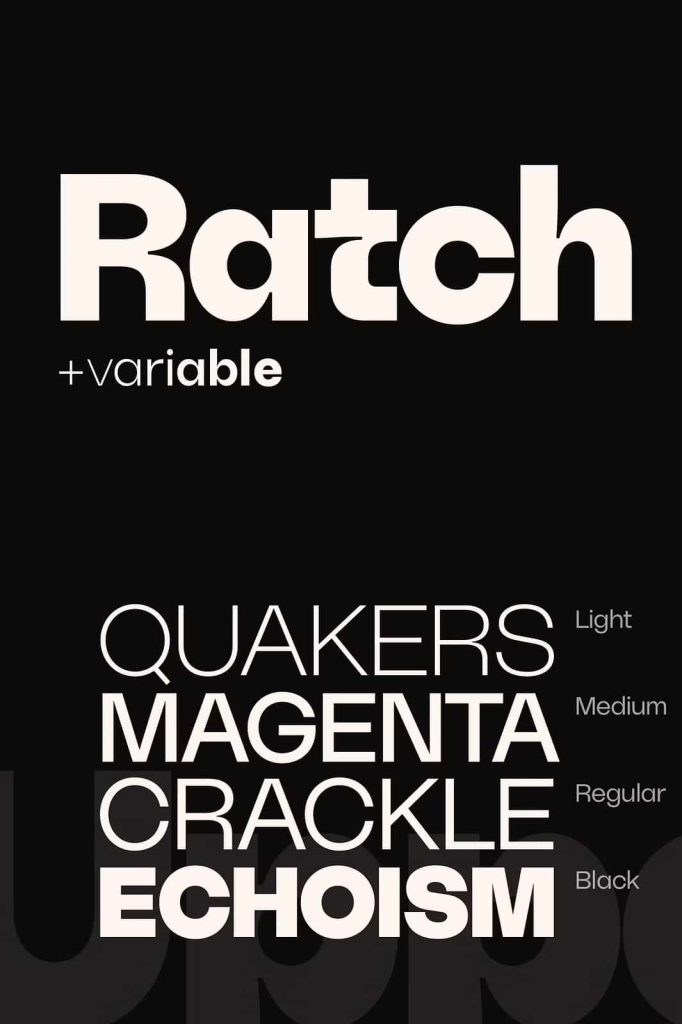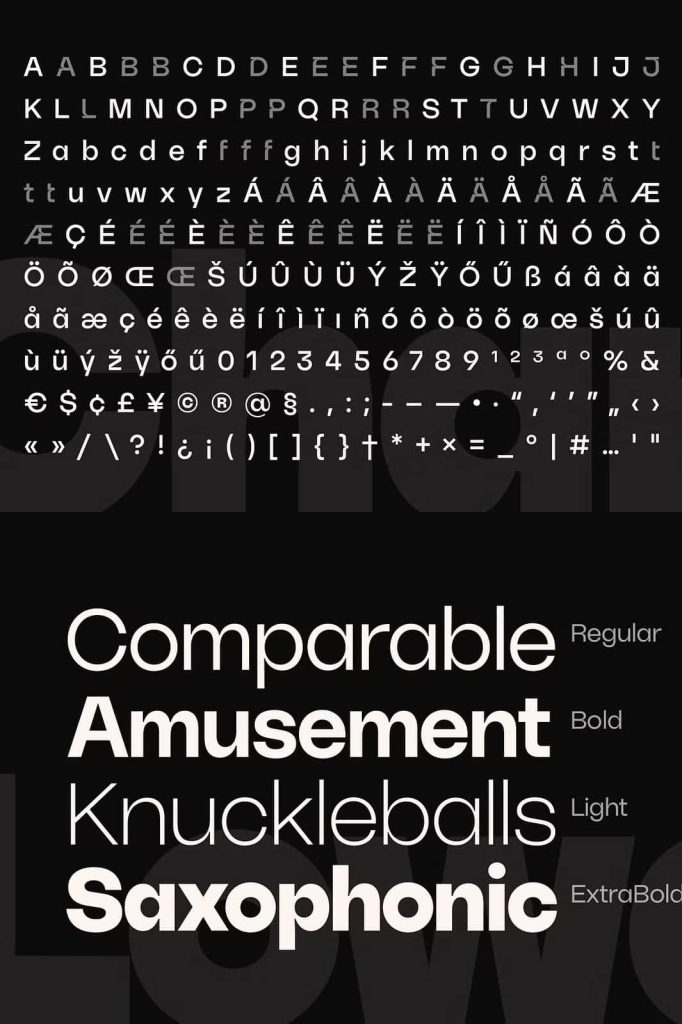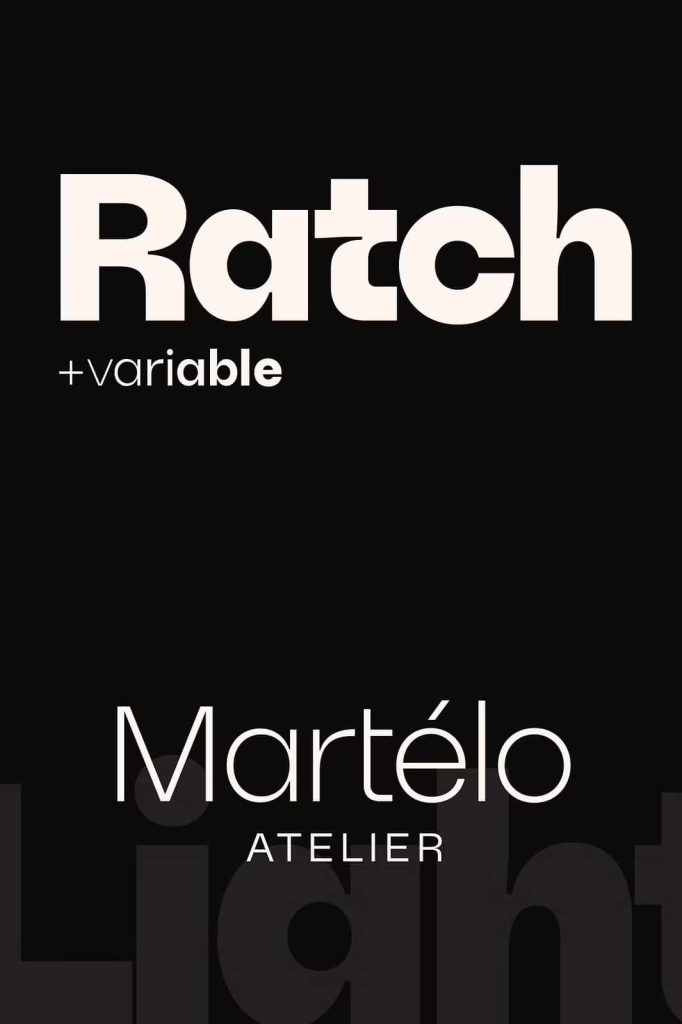
Ratch Geometric Grotesk Typeface Family
Ratch is a modern geometric grotesk typeface family designed to deliver clarity, flexibility, and bold contemporary character. Built with precision and balance, Ratch offers seven carefully engineered weights ranging from Thin to Black, along with a fully functional variable font that gives designers complete creative control. This typeface family empowers you to shape typography with confidence, whether you create branding systems, editorial layouts, or digital interfaces.
Ratch combines the clean logic of geometric construction with the expressive functionality of a versatile font system. Its structured forms create strong visual rhythm, while its extensive weight range allows you to build hierarchy effortlessly. Designers can rely on Ratch to maintain consistency across projects while still offering room for individuality.
Seven Weights for Complete Typographic Control
Ratch provides seven distinct weights, from Thin to Black, ensuring flexibility across every stage of design. The lighter weights deliver elegance and openness, making them perfect for minimal layouts, high-end branding, and spacious editorial spreads. Medium and Regular weights support body text and interface elements with clarity and comfort. Bold and Black weights bring power and emphasis to headlines, posters, and promotional materials.
This broad spectrum of weights allows you to construct strong typographic hierarchy without switching typefaces. You can create contrast, emphasis, and balance within a single cohesive family. Ratch simplifies your workflow while strengthening visual consistency.
From Thin to Black with Precision
Each weight maintains consistent proportions and spacing, preserving harmony across the entire family. The transition from Thin to Black feels smooth and intentional. This careful calibration ensures your layouts remain balanced, whether you design subtle editorial pages or bold advertising campaigns.
By offering reliable weight progression, Ratch supports complex typographic systems in both print and digital formats.
Fully Functional Variable Font
Ratch goes beyond static styles by including a fully functional variable font. This feature allows you to adjust weight seamlessly within supported design software. Instead of selecting fixed styles, you can fine-tune thickness and intensity to match your exact creative vision.
The variable functionality enhances flexibility and efficiency. Designers can experiment with subtle adjustments to achieve the perfect visual tone. This modern approach makes Ratch highly adaptable for responsive web design, interactive platforms, and evolving brand systems.
Optimized for Modern Workflows
Variable font technology supports streamlined file management and dynamic typography. Ratch enables smoother transitions between weights, helping you maintain consistency across digital environments. Whether you build websites, apps, or multimedia presentations, the variable font ensures adaptable and responsive performance.
This forward-thinking design makes Ratch a strong choice for contemporary creative professionals.
Geometric Grotesk with Contemporary Character
Ratch embodies the essence of geometric grotesk design. Its clean shapes and rational structure create a modern aesthetic rooted in simplicity and precision. The letterforms feel balanced and confident, delivering clarity without appearing sterile.
The geometry ensures legibility at various sizes, while subtle detailing prevents the typeface from feeling rigid. This balance makes Ratch suitable for corporate branding, technology startups, fashion labels, and creative agencies.
Stylistic Alternates for Personal Expression
Each style within the Ratch geometric grotesk typeface includes a set of stylistic alternates. These alternates allow designers to highlight and personalize specific letters within text. By switching to alternate characters, you can add subtle distinction or bold character to headlines and logos.
This feature gives you creative freedom without compromising cohesion. You can maintain the core identity of the typeface while introducing unique touches that reflect brand personality or design intent.
Ideal for Branding, Editorial, and Digital Design
Ratch performs exceptionally well across multiple applications. In branding, it strengthens logos, wordmarks, and corporate identity systems with clean structure and modern appeal. In editorial design, it supports strong hierarchy and readable layouts. For digital projects, its geometric clarity ensures crisp rendering on screens of all sizes.
The consistent design language across weights and styles allows you to build unified visual systems. Whether you design posters, packaging, websites, or marketing campaigns, Ratch adapts effortlessly to your needs.
Why Choose Ratch Geometric Grotesk Typeface?
- Modern geometric grotesk design with clean structure
- Seven weights from Thin to Black
- Fully functional variable font for maximum flexibility
- Stylistic alternates for personalized typography
- Ideal for branding, editorial, and digital applications
Ratch geometric grotesk typeface family gives designers the tools to create bold, precise, and adaptable typography. Its combination of structured geometry, extensive weight range, and variable font technology ensures both creative freedom and professional consistency. Choose Ratch to build modern visual identities and dynamic layouts with confidence and clarity.